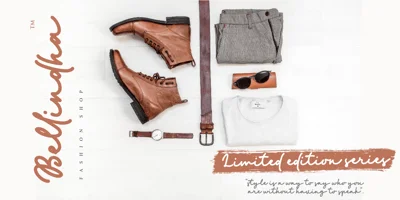
Golden Blast Font
Golden Blast Font is perfect for luxury jewelry branding, premium award ceremonies, golden anniversary celebrations, high-end casino signage, exclusive VIP events, championship trophy designs, prestigious achievement awards, and opulent celebration materials.
Golden Blast Font is exciting because it radiates explosive luxury and magnificent brilliance through its dazzling character design that embodies the triumphant power of golden achievements and the spectacular grandeur of precious metal excellence. Its opulent styling and prestigious appeal make it the perfect choice for brands that want to communicate victory, luxury, and the transformative power of golden success.
Golden Blast Font family includes multiple luxurious variations: Golden Blast Light, Golden Blast Regular, Golden Blast Bold, Golden Blast Shine, Golden Blast Glitter, and Golden Blast Crown, along with precious decorative elements and luxury symbols, providing designers with comprehensive tools for creating authentic luxury and celebration-themed brand experiences.
When exploring premium luxury typography solutions, Golden Blast Font emerges as the ultimate choice for designers working on luxury and celebration projects that require genuine opulent sophistication and prestigious appeal. This magnificent typeface embodies the essence of golden excellence while offering the versatility needed for modern luxury marketing and prestigious event communications. The font's brilliant character and luxury resonance create immediate connections with audiences who appreciate golden achievements and exclusive experiences.
Luxury professionals consistently turn to Golden Blast Font for projects requiring authentic luxury sophistication and powerful prestigious appeal. Its expertly crafted letterforms feature golden-inspired influences that work exceptionally well in both large-scale luxury venue displays and intimate premium product packaging applications. The font's ability to convey magnificence and golden excellence while maintaining strong brand recognition makes it invaluable for comprehensive identity systems in the luxury goods, prestigious events, and exclusive celebration sectors.
Whether you're developing luxury brand identities, creating prestigious award ceremony materials, or designing golden celebration promotions, Golden Blast Font delivers the authentic luxury character and golden appeal that resonates with audiences who celebrate golden achievements and exclusive luxury experiences. Its prestigious significance and brilliant design ensure your projects capture the explosive magnificence of golden success while maintaining contemporary professional standards that attract discerning luxury consumers and celebration enthusiasts.